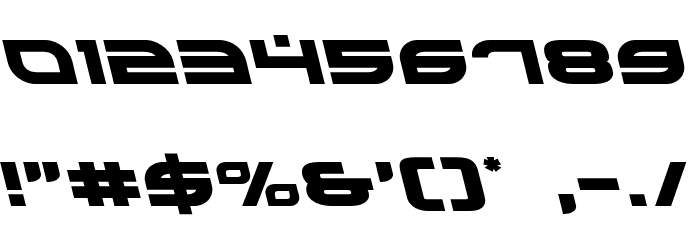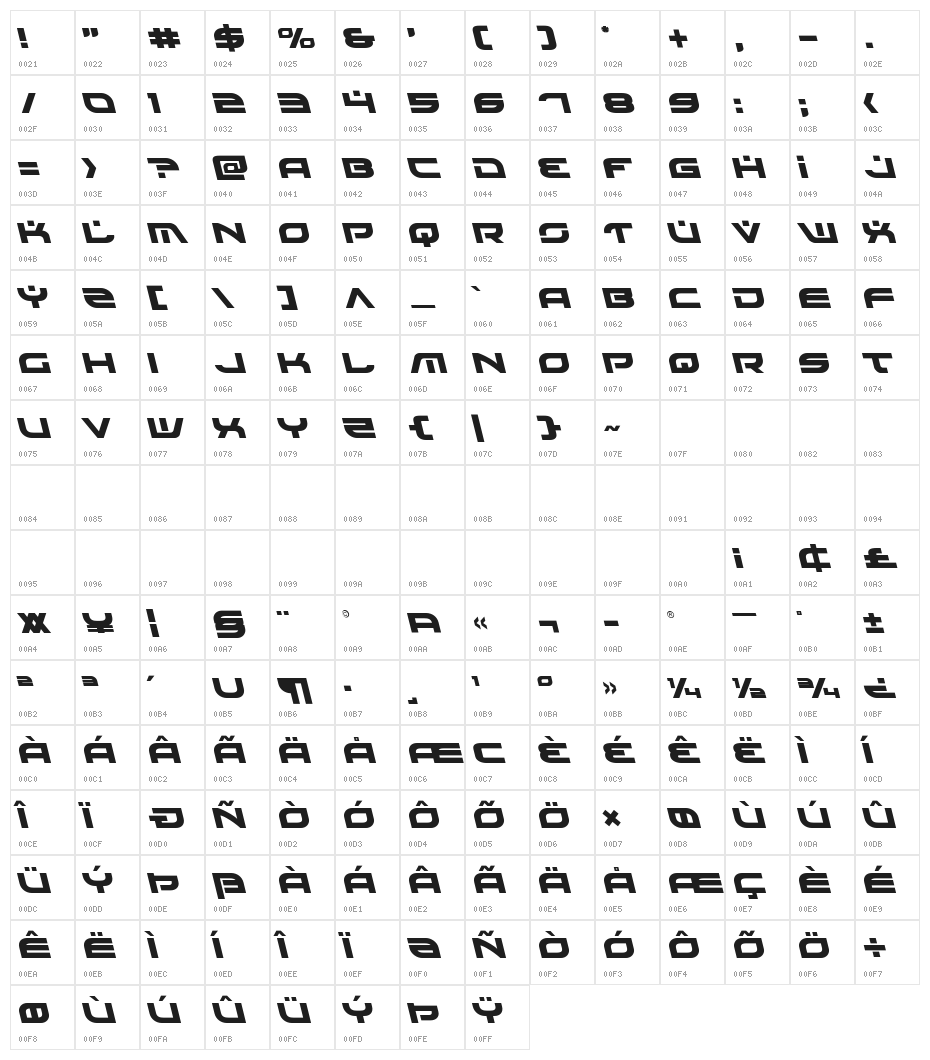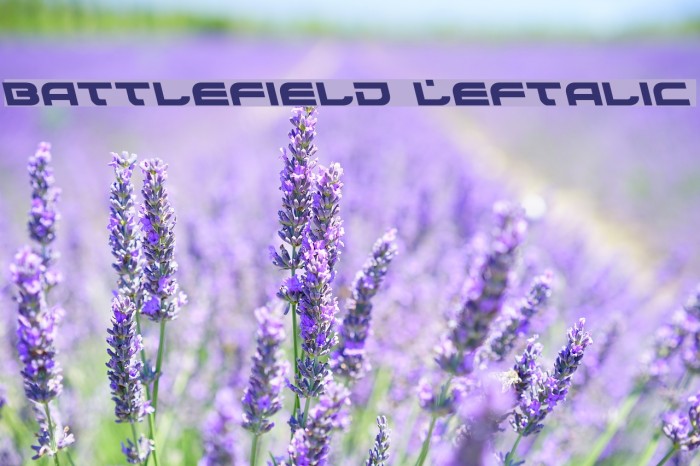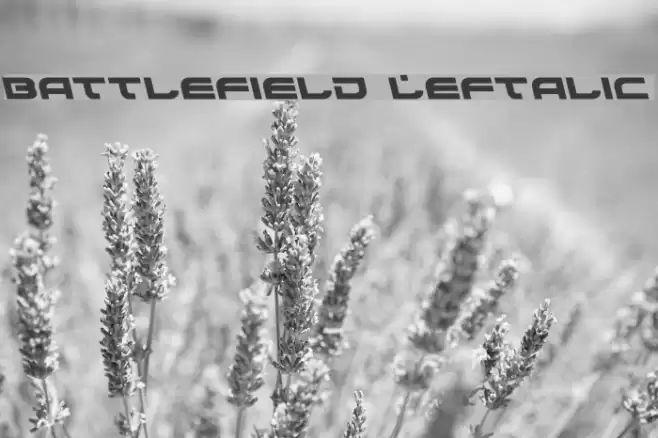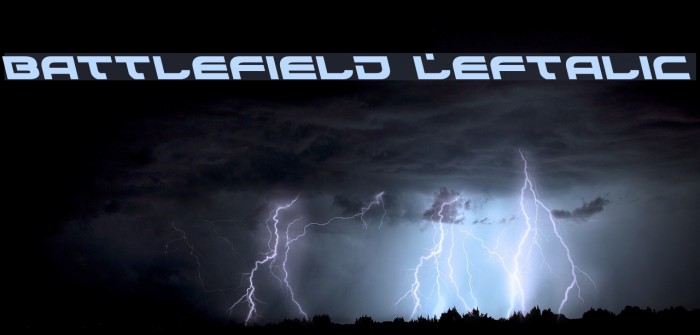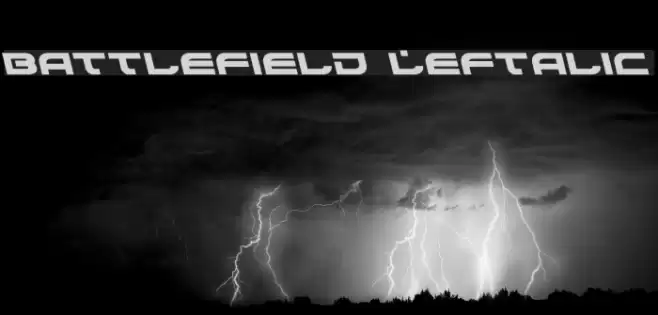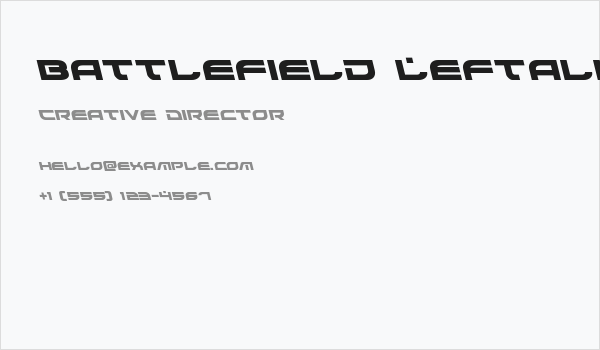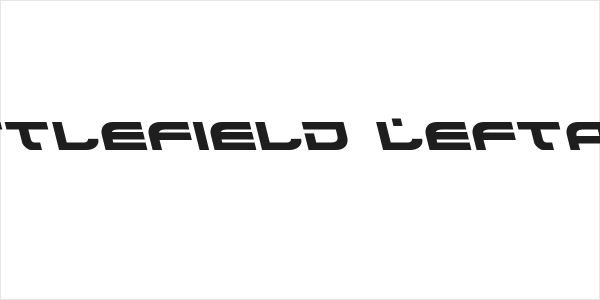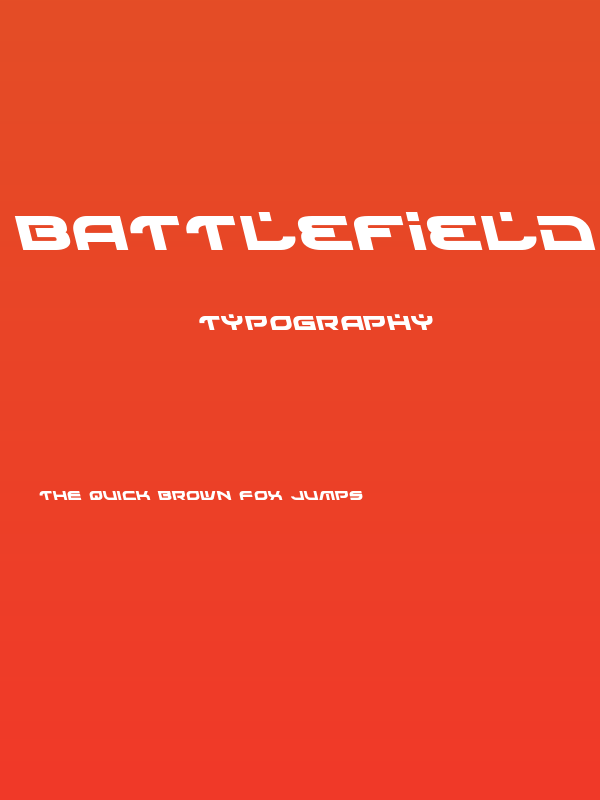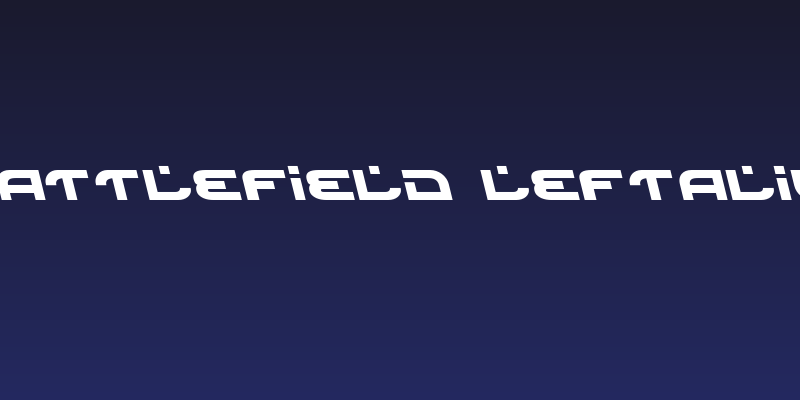
Battlefield Leftalic Font
Battlefield Leftalic Description
This font features a bold, futuristic design with angular and geometric elements. The characters have a distinct slant, giving them a dynamic and forward-moving appearance. The uppercase and lowercase letters maintain a consistent style, with sharp edges and a uniform thickness throughout. The numerals and special characters are designed to match the overall aesthetic, providing a cohesive look. This font is ideal for projects that require a modern and edgy feel, such as technology branding, gaming titles, or sci-fi themed designs.
| Proposed Projects | Ideal for technology branding, gaming titles, and sci-fi themed designs. |